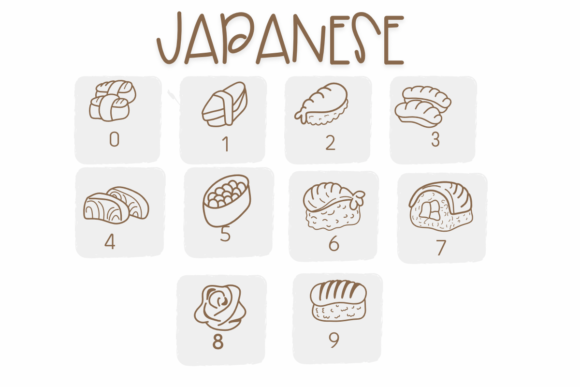
Japanese Food Font
Japanese Food is a fun dingbats font with a delicious theme. This font can enhance your creative projects such as wedding invitations, DIY, crafts, decorations, logos, and many other creative ideas.